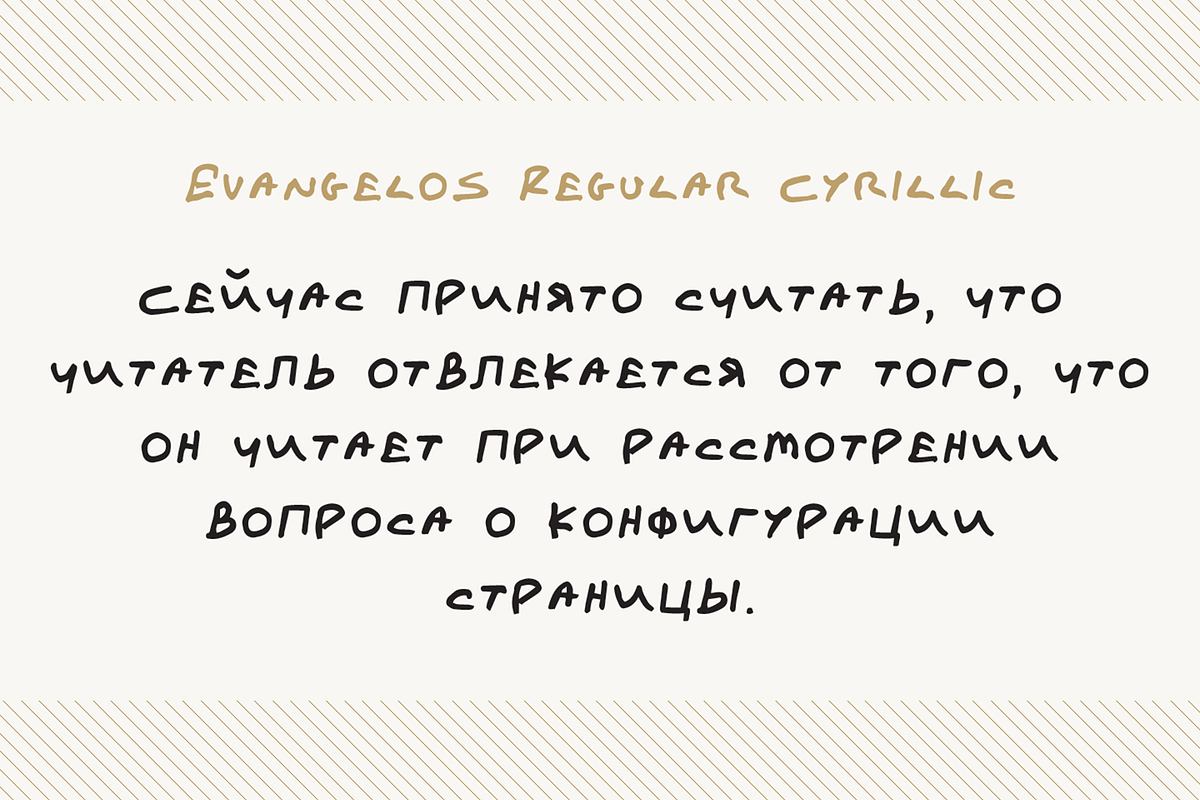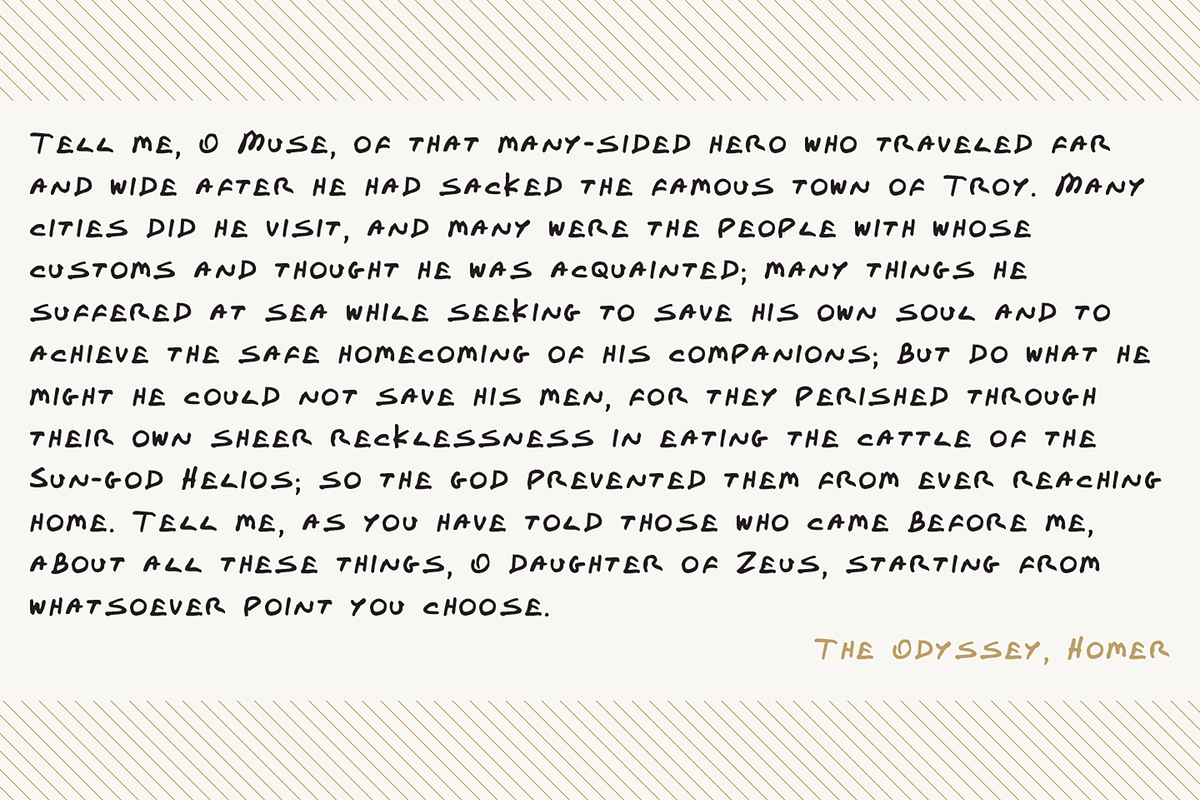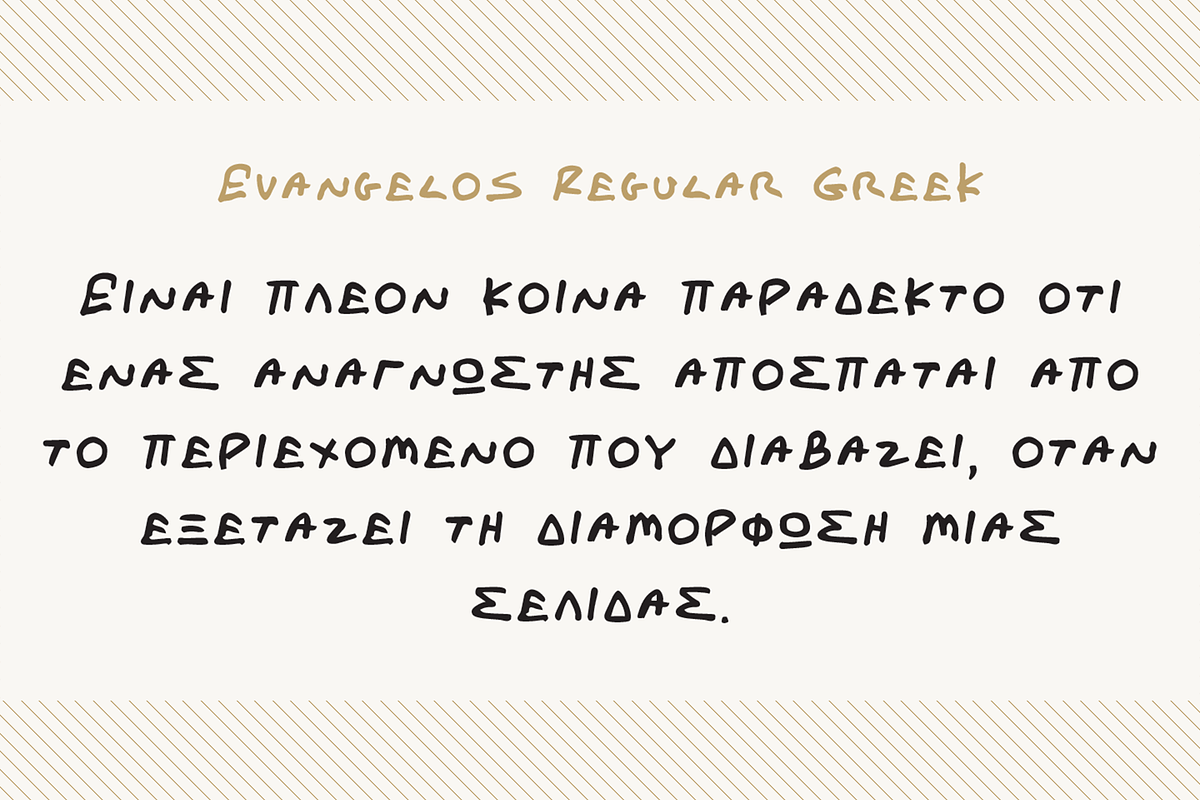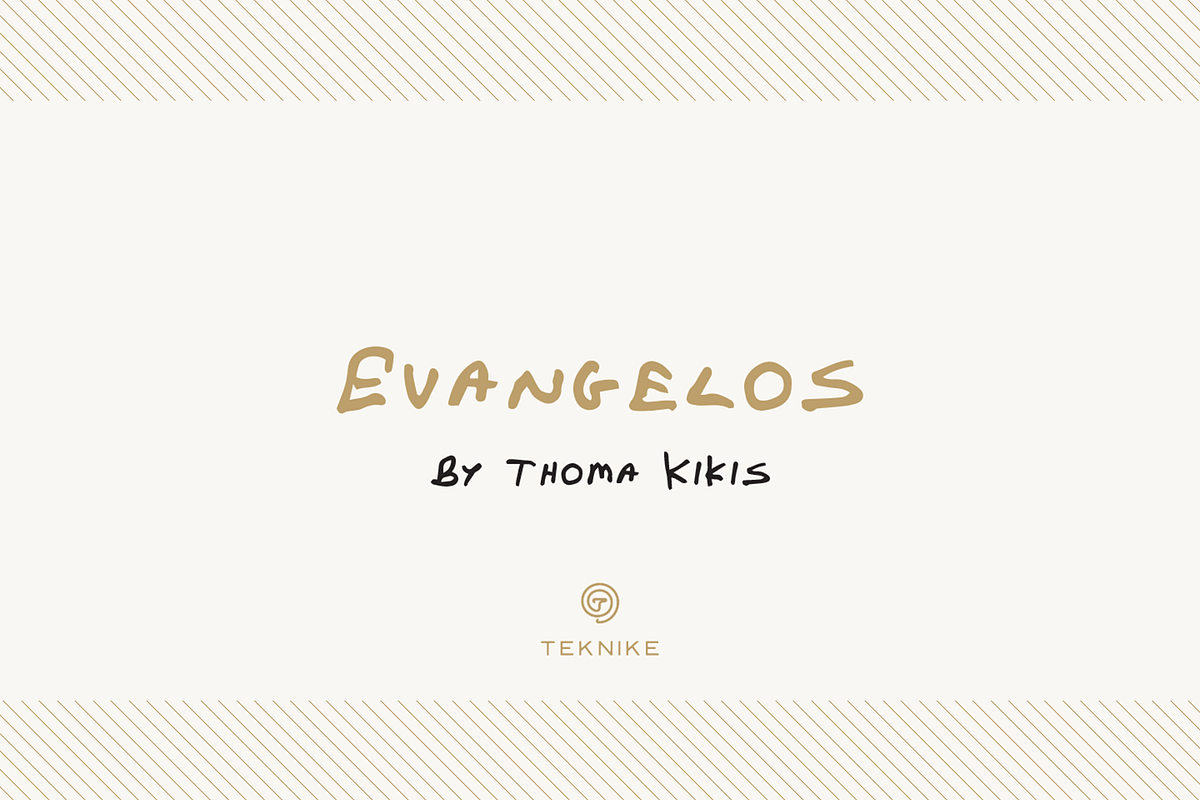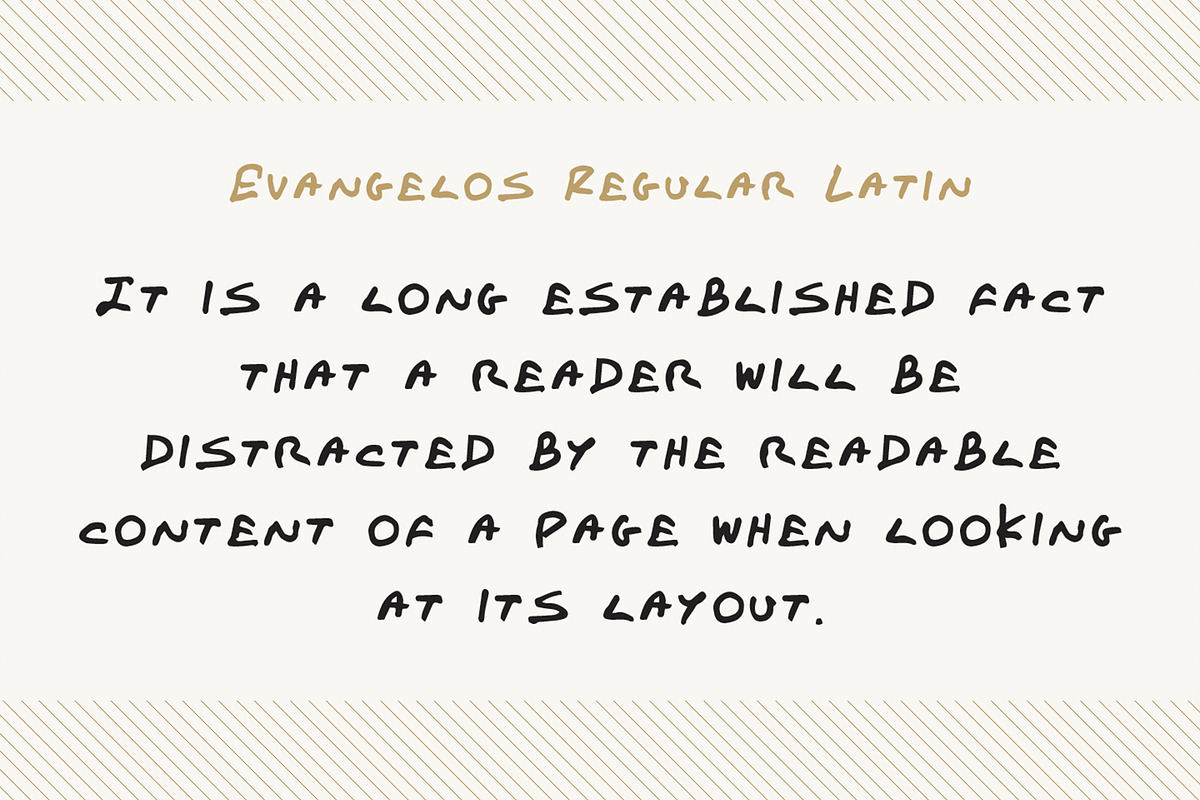
Evangelos
Evangelos is a display handwriting font. The typeface is a distinct uppercased style hand drawn font and designed to be easy to read. Evangelos is based on the handwriting style of the designer’s late father and the font's namesake. Evangelos is great for display work, writing, poetry, architecture, posters and headings.
Evangelos is designed by Thoma Kikis and is currently available with Latin, Cyrillic and Greek character sets.